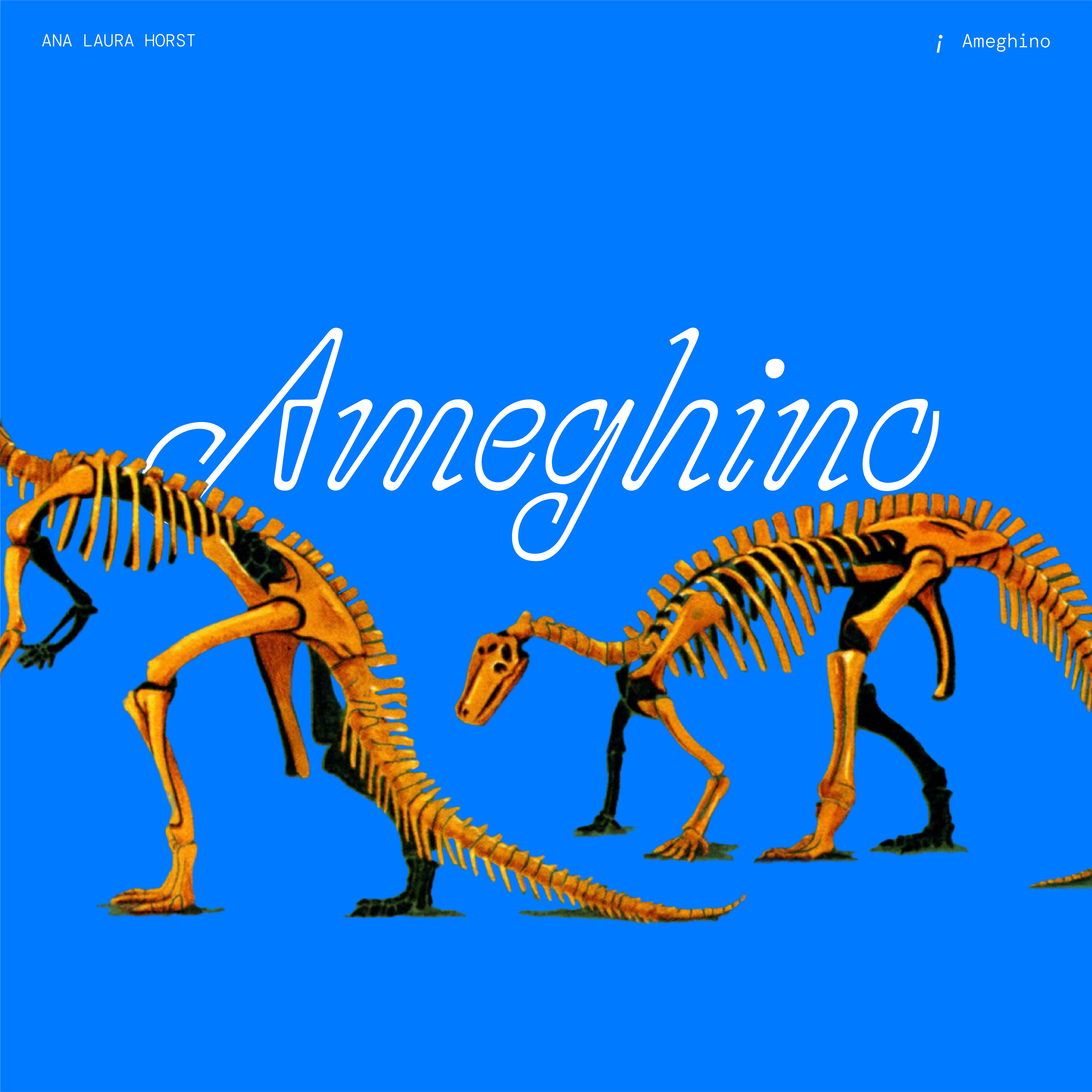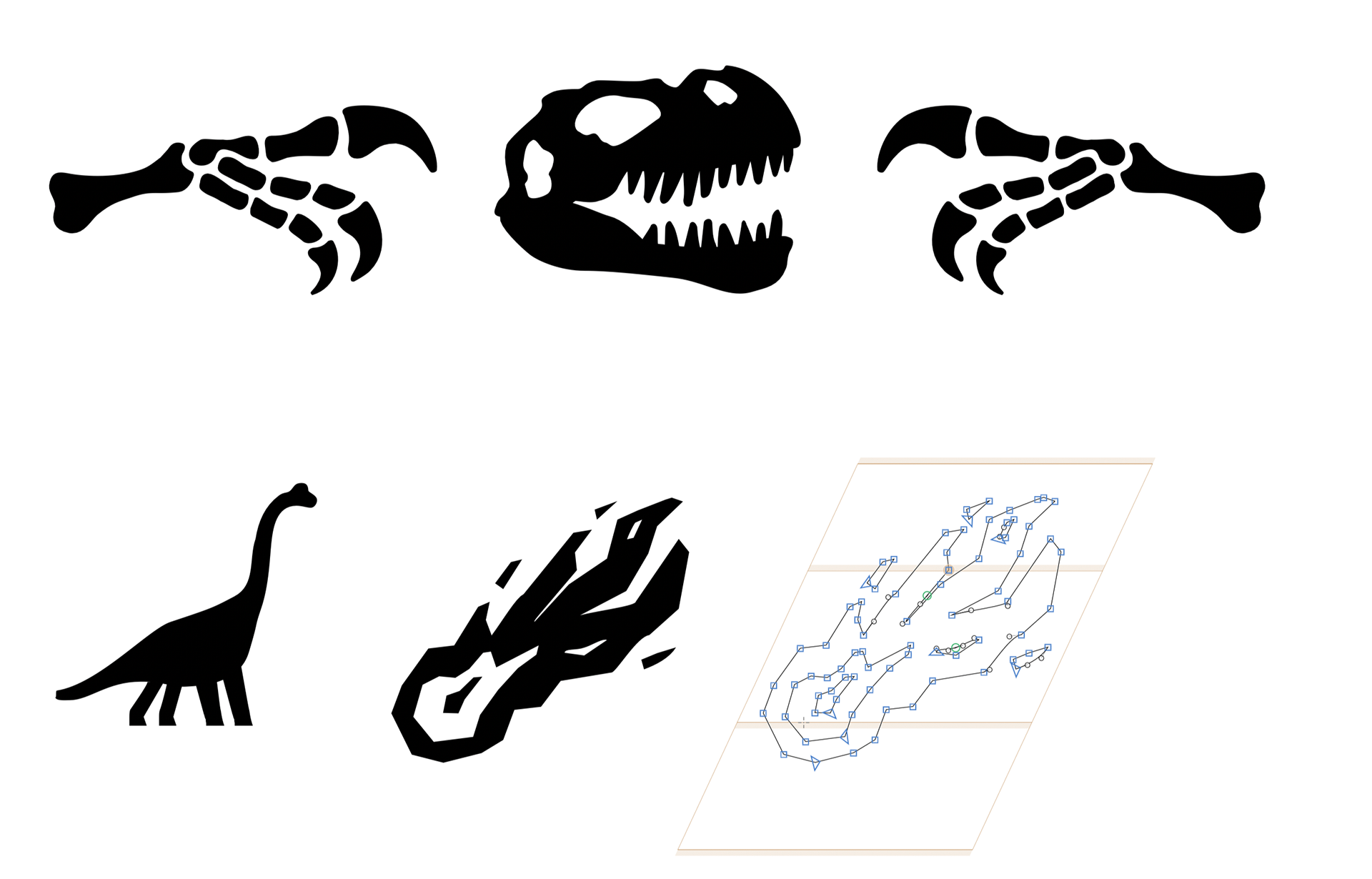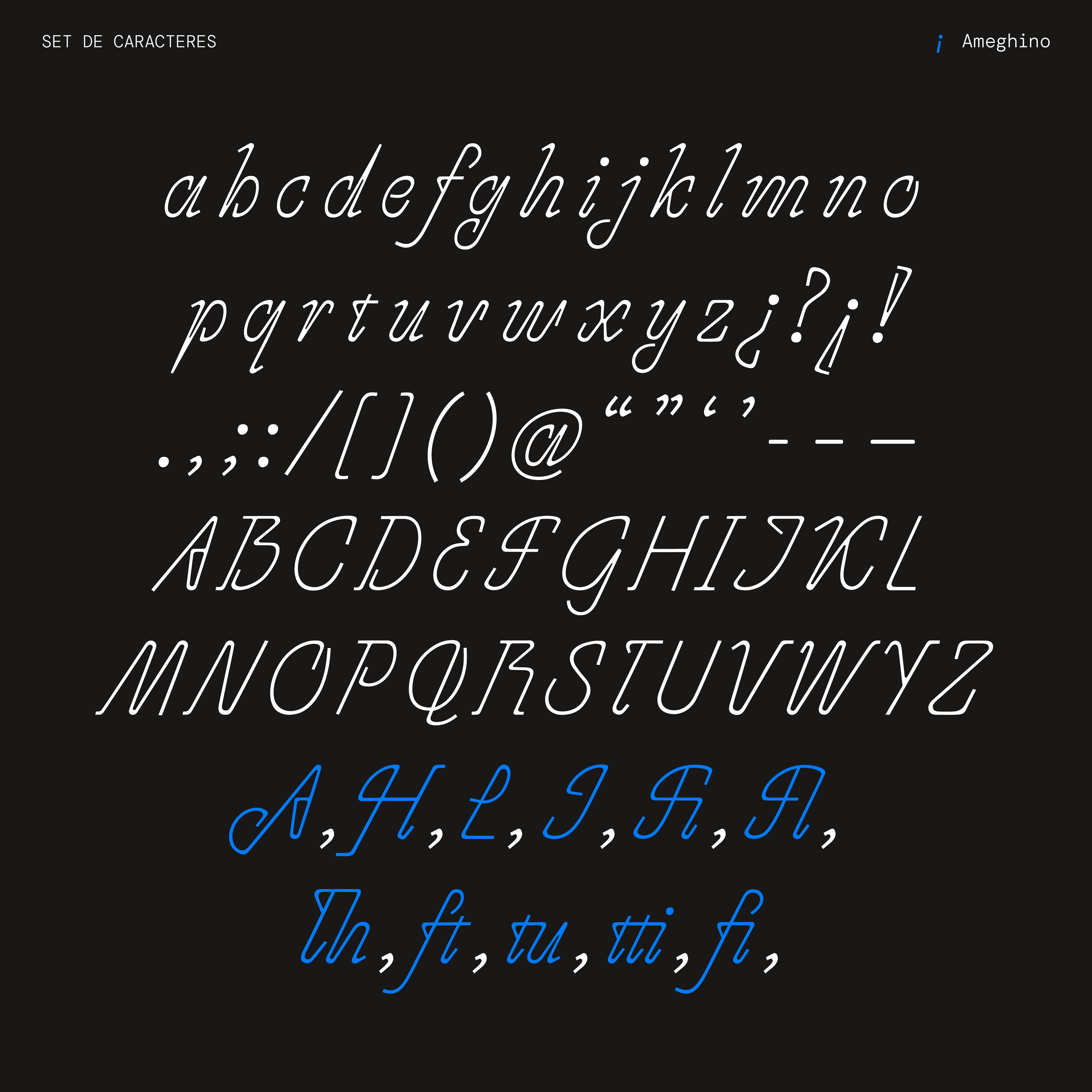
Typeface design + specimen; Ameghino was born from references found in labels and written materials from various Natural History Museums in Buenos Aires. Alongside the influence of his handwriting, this typeface seeks to honour and highlight the invaluable contributions made by Florentino Ameghino, Argentine naturalist and paleontologist, to both national and international science.